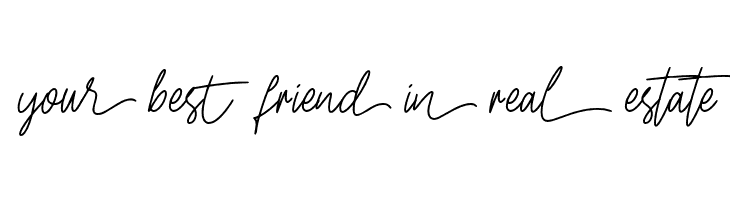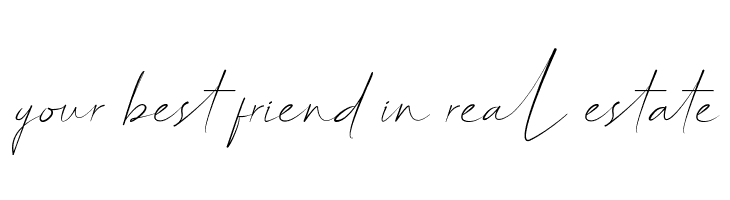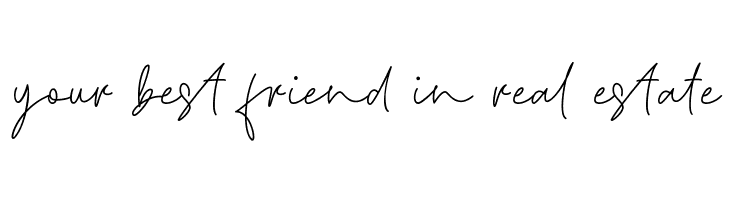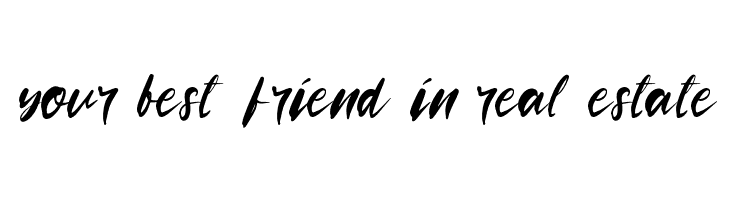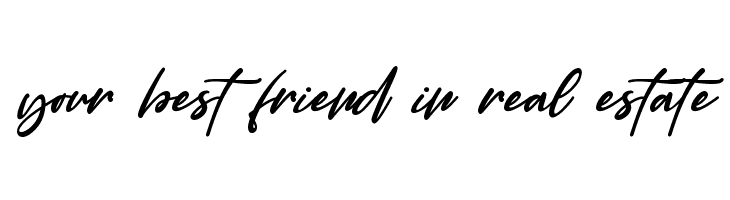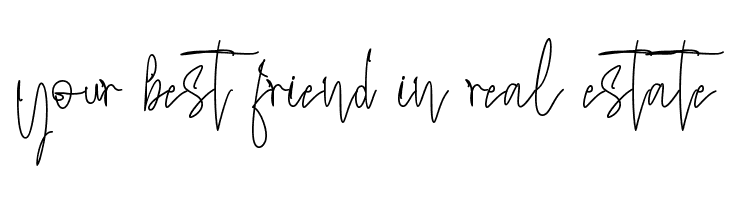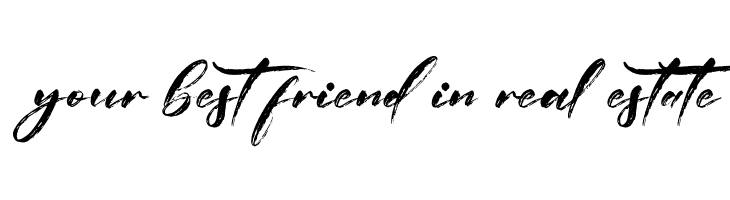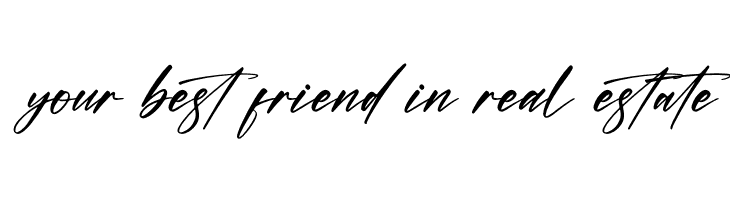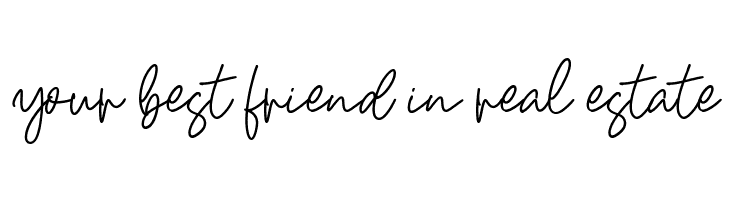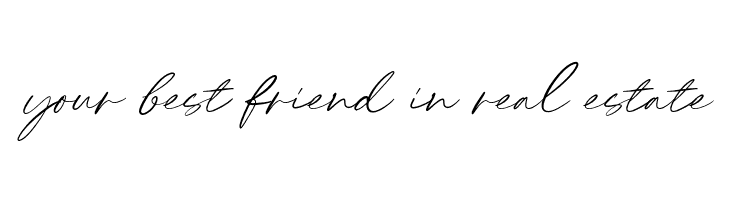
• DoriaSignature
A sophisticated handwritten font with fluid, cursive strokes.
• Belligiant
A graceful script font with elegant, flowing strokes.
• Befront
A fluid and elegant handwritten font with smooth, flowing lines.
• Rooselyndemo
A bold, expressive script font with a brush-like texture and dynamic style.
• Alexandroupoli
A dynamic cursive script font with elegant, fluid strokes.
• Fergitta
A lively, handwritten font with fluid strokes and playful elegance.
• Castedral
A dynamic and expressive script font with bold, artistic brush strokes.
• Hunterlost
A fluid and elegant script font with a handwritten feel.
• Castello
A lively handwritten font with fluid strokes and a casual elegance.
• SellinaWordDEMO
A fluid and elegant handwritten script font with dynamic strokes.
• NorthAvellionDEMO
A cursive, handwritten font with elegant, flowing strokes.
• Charlotte Southern
A fluid, elegant handwritten font with a natural cursive style.
• Simple Marker
A playful, handwritten font with smooth curves and a casual style.
A bold and lively script font with fluid, connected strokes and a playful elegance.
• Asterikats Free Regular
A playful, artistic handwritten font with fluid, connected letterforms.
• Mokashin Free Regular
A modern, elegant handwritten font with medium contrast and fluid strokes.
• Callihgra Free Regular
An elegant, cursive font with fluid, calligraphic strokes.
• ReadfasterRegular
A lively and energetic handwritten font with irregular strokes and playful style.
• falling free for personal use
A graceful and elegant script font with flowing cursive letterforms.
• Chowgant Signature
An elegant, cursive font with fluid, connected letters and varying line thickness.
• Tomihesta
A bold, expressive script font with fluid, interconnected strokes.